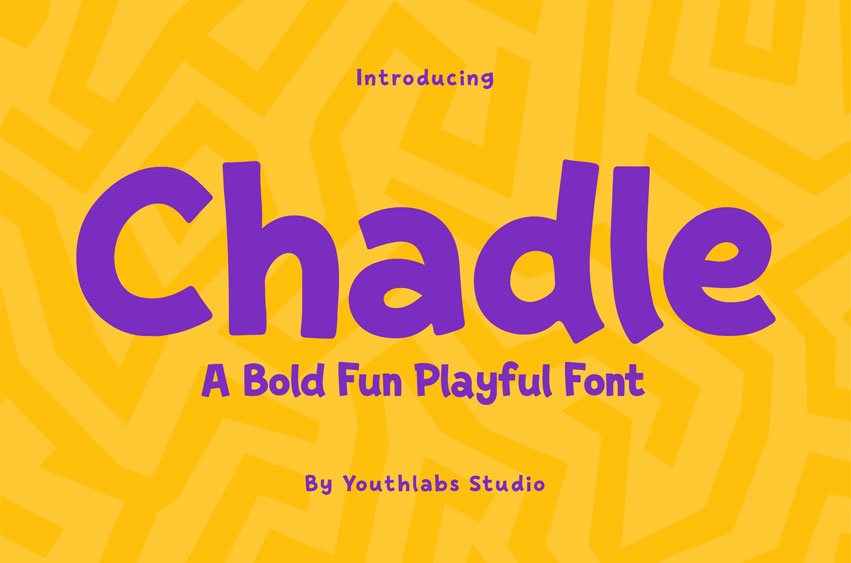
Chadle Font is a bold, fun, and playful display font designed to bring joy and energy to your designs. With chunky shapes, rounded curves, and a friendly personality, Chadle is perfect for kids branding, playful logos, packaging, posters, educational content, and cheerful headlines.
Its vibrant style makes any message feel approachable, creative, and full of character.
- Bold playful display font
- Rounded and chunky letterforms
- Fun, friendly character
- Strong visual impact
- Easy to read at large sizes
- Perfect for kids & playful branding
- Great for posters, packaging, and logos
- Ideal for educational and creative projects